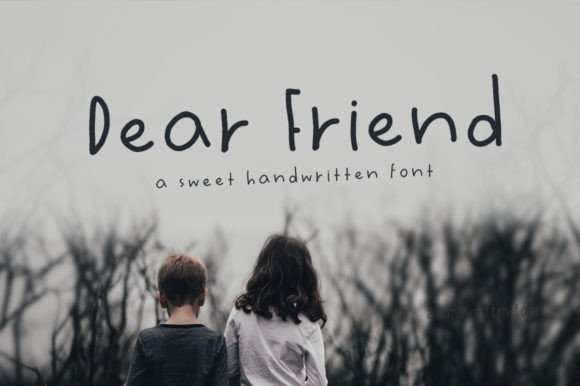
Introduction to Dear Friend Font
A cute handwritten font ideal for texts.
Create quotes, social media posts, greeting cards, t-shirts, mugs, stickers, quotes, totes, or any design project with a cute handwritten style Includes all uppercase and lowercase characters, numbers, and punctuation.